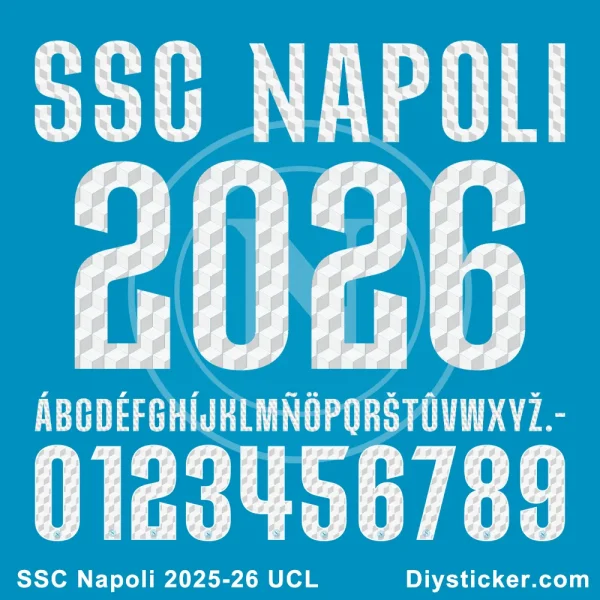
Elevate your designs with the official SSC Napoli 2025-26 UEFA Champions League Font. This exclusive typeface replicates the style used for Napoli’s UCL campaign, perfect for creating authentic Champions League jerseys, merchandise, and digital content.